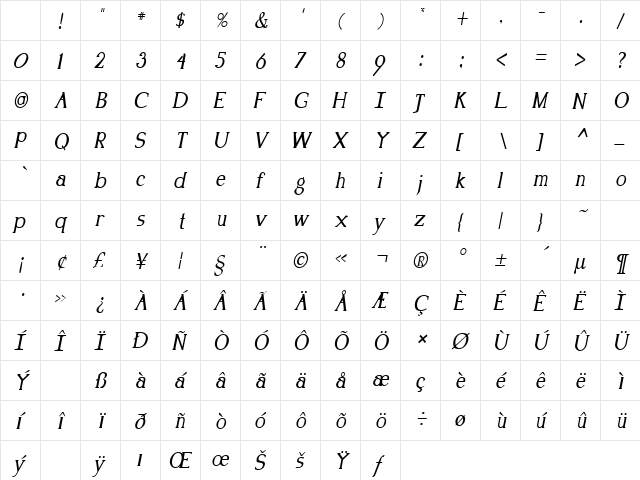
Complete LimacineCond Oblique glyph index. Displaying only characters natively supported by LimacineCond Oblique font.
LimacineCond is a composed and adaptable typeface that performs quietly and consistently across a wide range of design contexts. The slanted form adds forward momentum and visual energy. Its narrow stance lets it pack a punch even in space-constrained designs.
Pro Tip: Use LimacineCond for emphasis, pull quotes, and subheadings where its slanted energy can add rhythm to the layout.